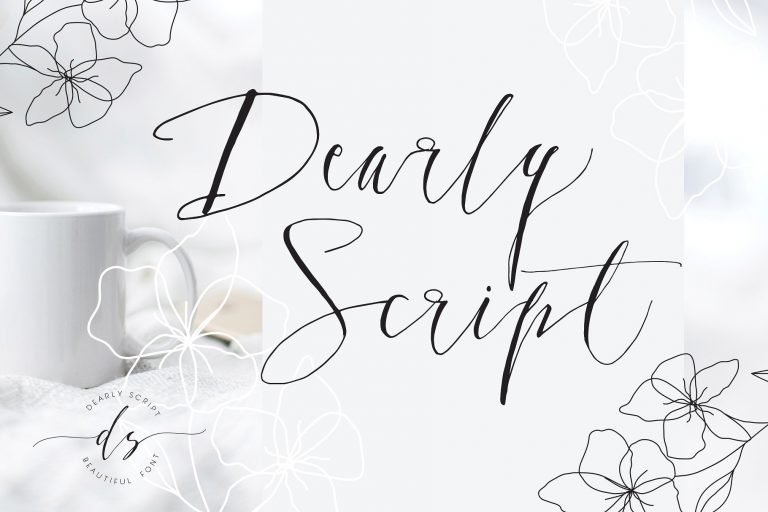
Dearly Script Font
Hello Everybody Font Lovers, How are You? I’m sure You’re OK. In this case I will introduce new script font with the name “Dearly”.  Dearly designed and shared by mycandythemes. Dearly – new calligraphy font with swashes. Dearly Script has a style and authentic look. This lovely font will beautiful you special day, branding and logo design, invitation design, very beautiful for your wedding day!